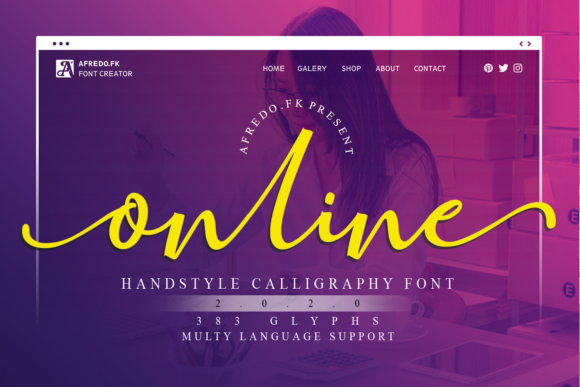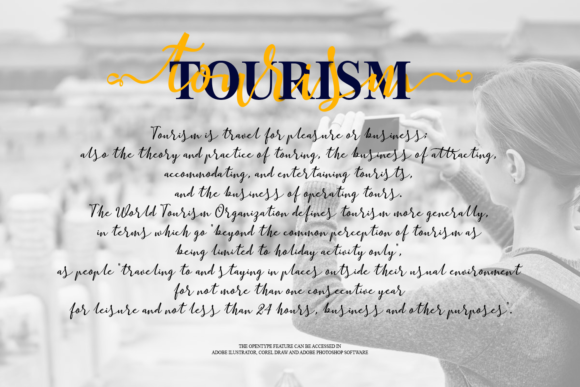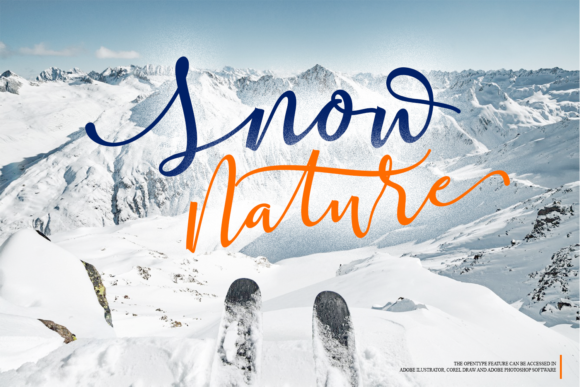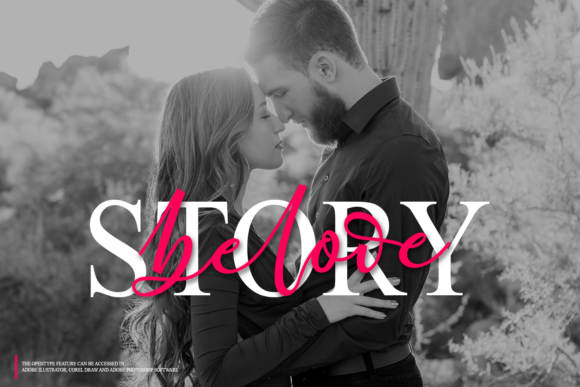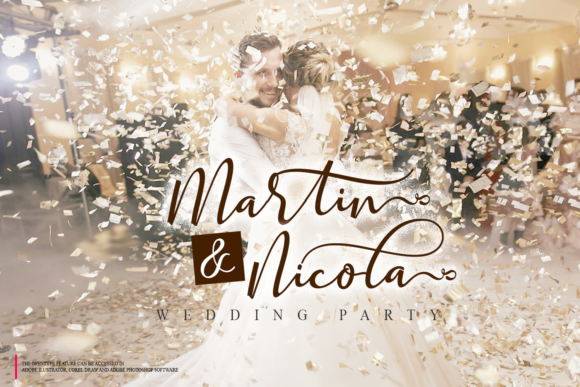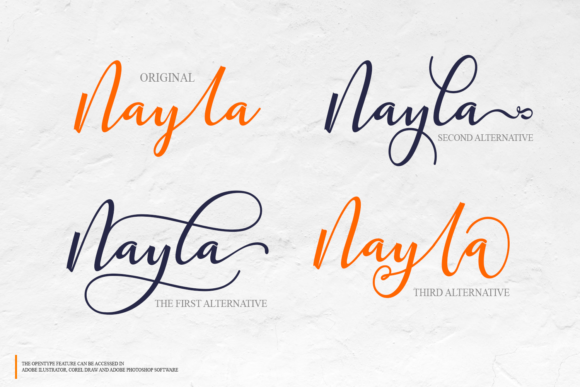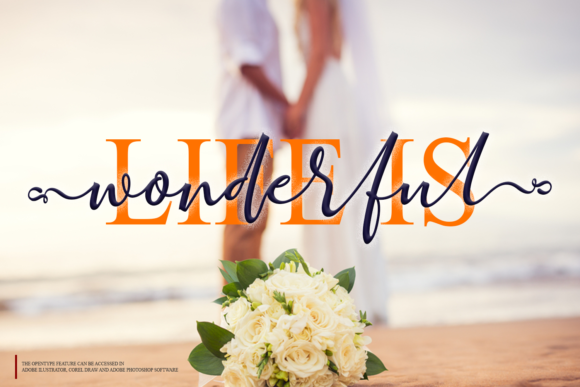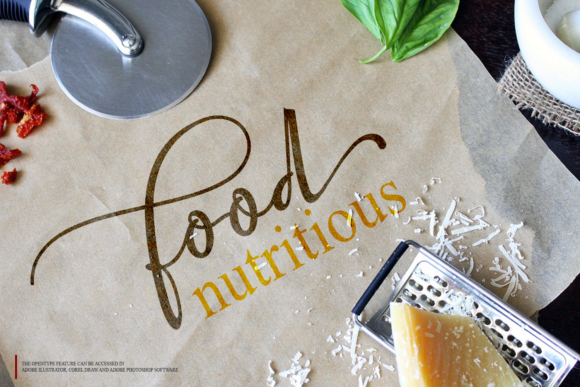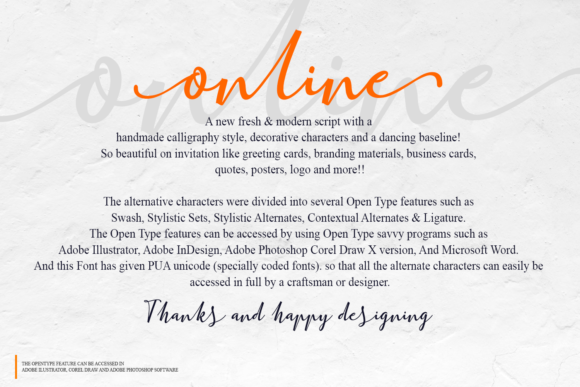
Online Font
About Online Font
Online is a gorgeous script font that radiates authenticity. It feels light, yet distinct, and will add a personal touch to any design project!